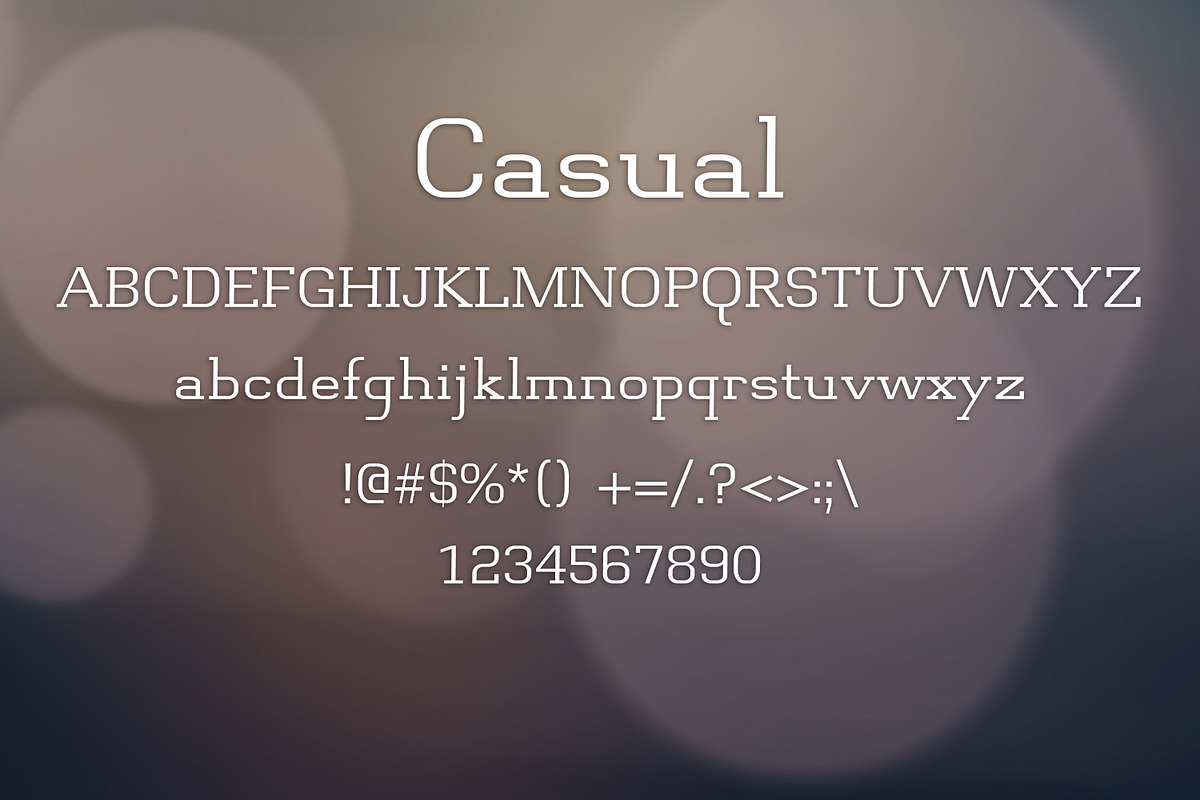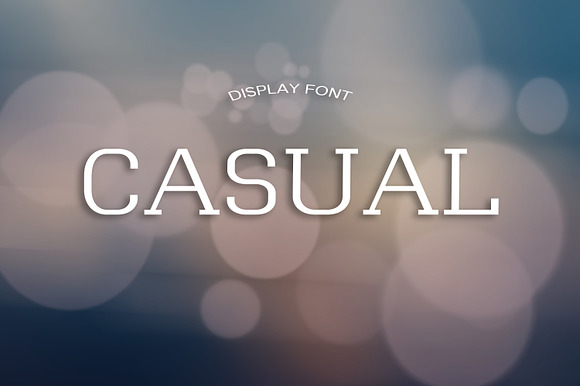
CASUAL font
- Casual regular
Why CASUAL font is worth a look
CASUAL font by DmDesignsStoreArt fits naturally into Branding, posters, packaging, typography.